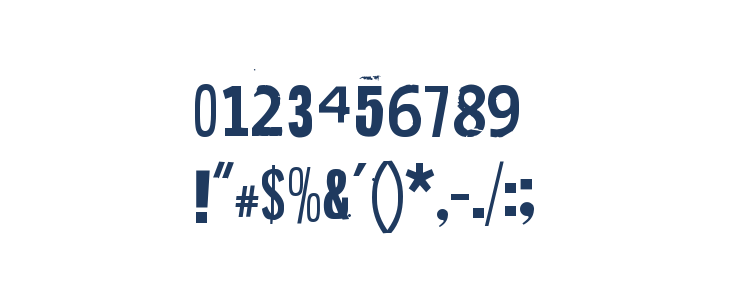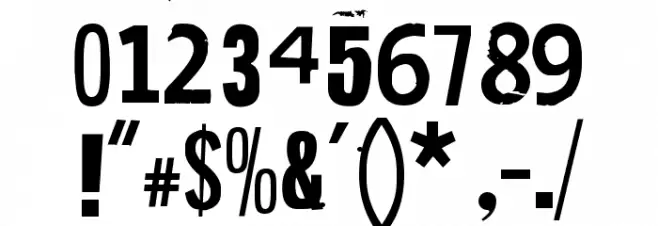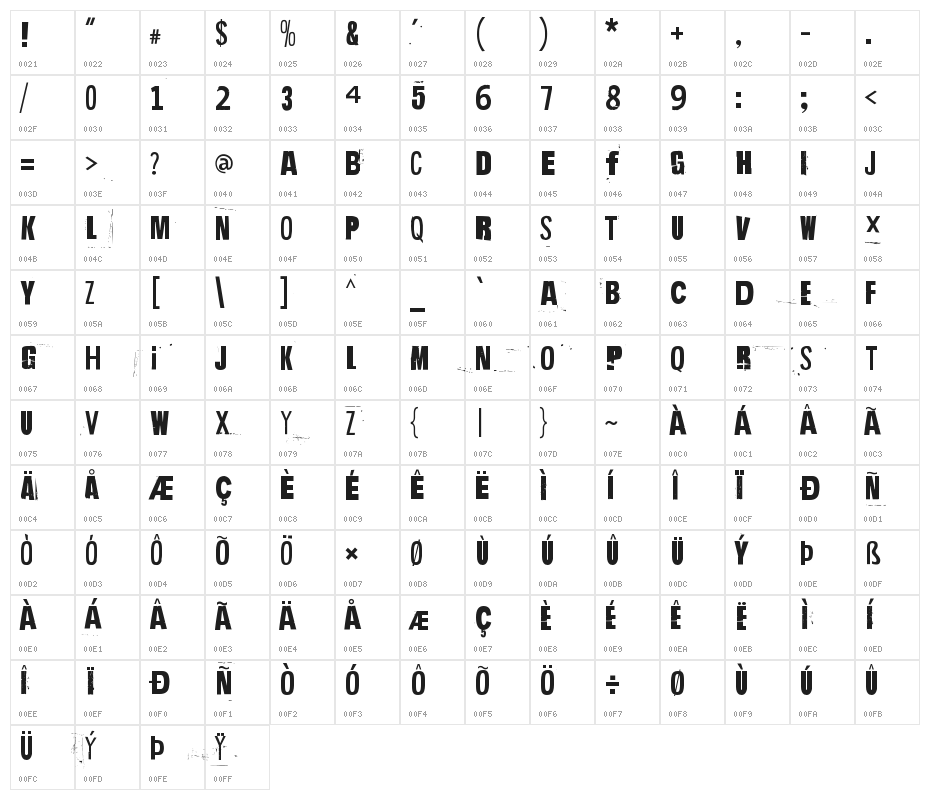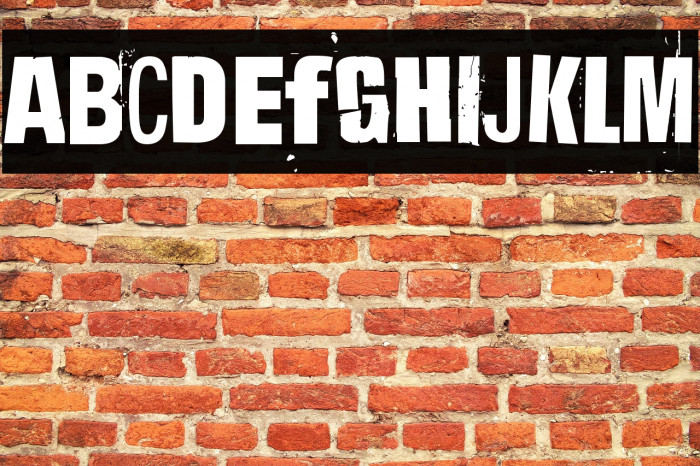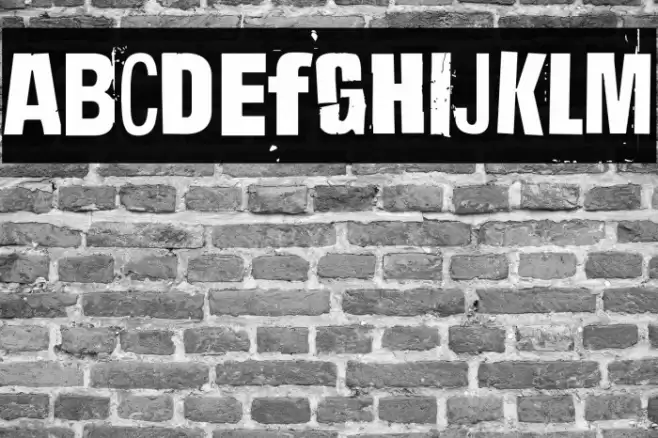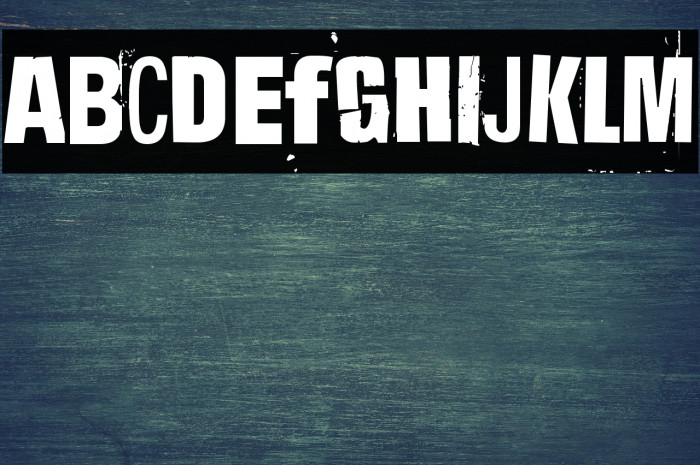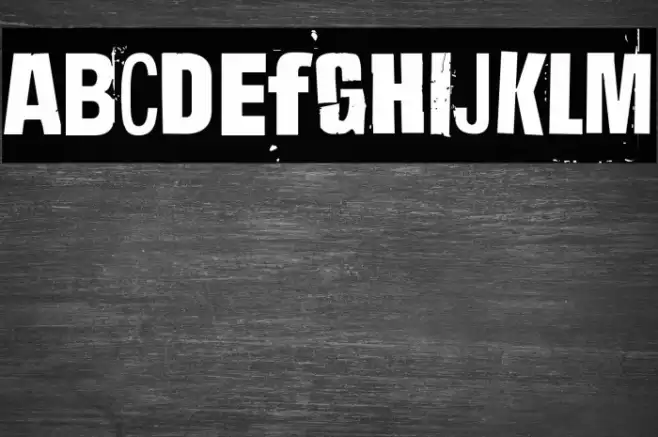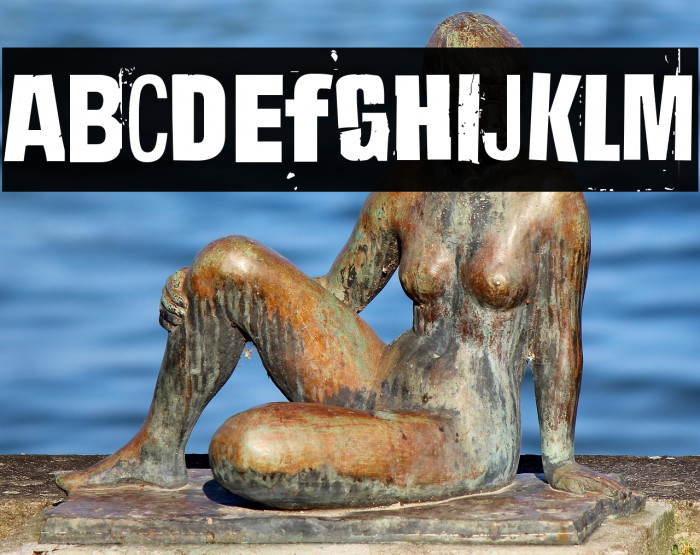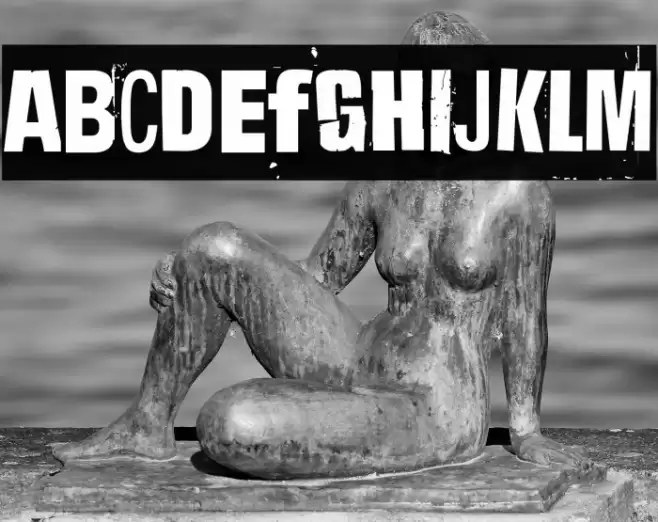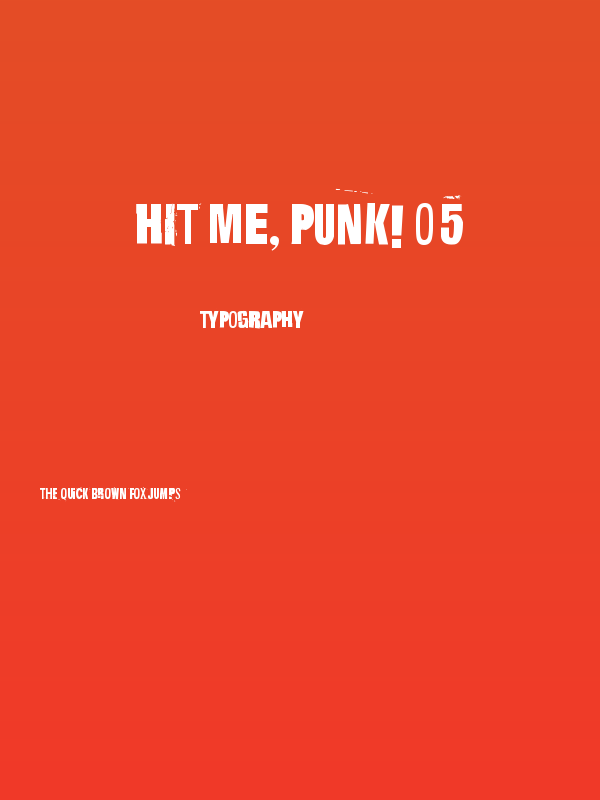
Hit me, punk! 05 Font
Hit me, punk! 05 Description
This font exudes a gritty, rebellious vibe with its distressed, stencil-like appearance. The characters are bold and impactful, featuring irregular edges and a rough texture that suggests a worn, urban aesthetic. The uppercase letters are particularly striking, with some letters appearing slightly tilted or uneven, enhancing the chaotic, punk-inspired feel. The numbers and special characters maintain this rugged style, making the font ideal for projects that require a strong, unconventional look.
| Overall Style | Punk, Urban, Rebellious |
| Proposed Projects | Ideal for music album covers, streetwear branding, posters, and any design project seeking an edgy, rebellious look. |